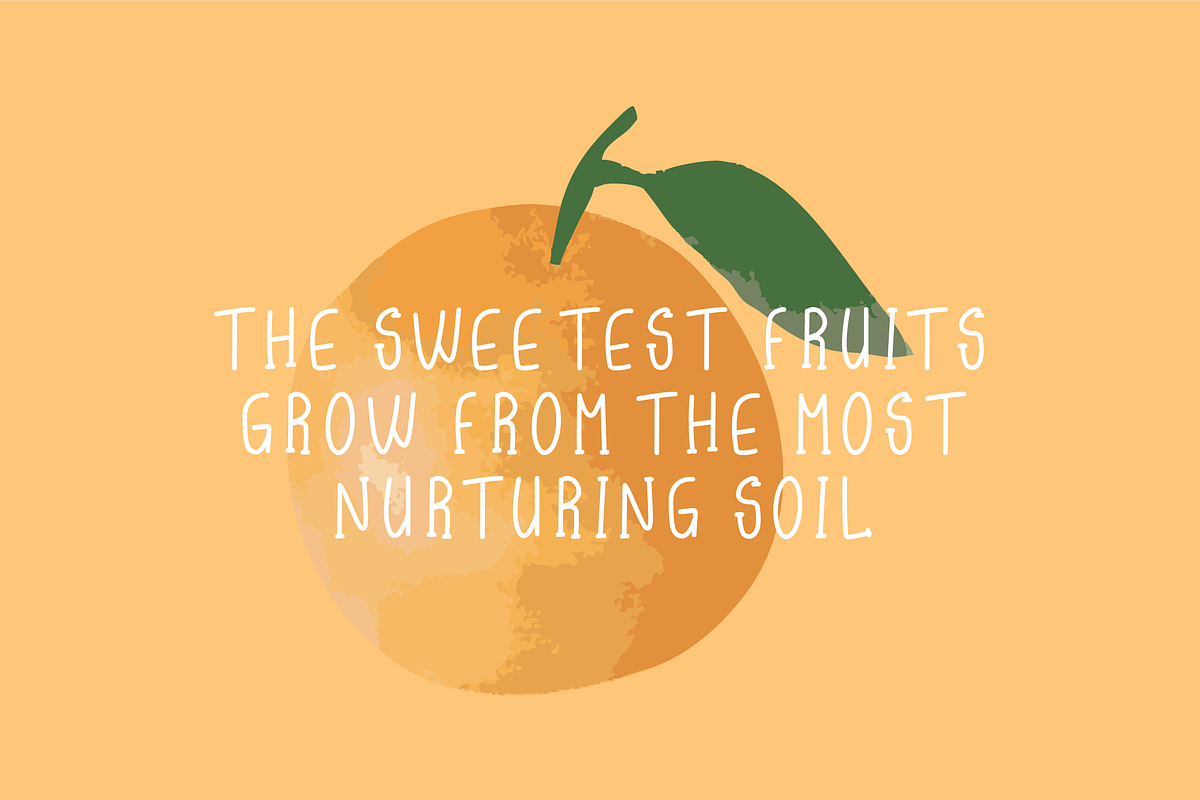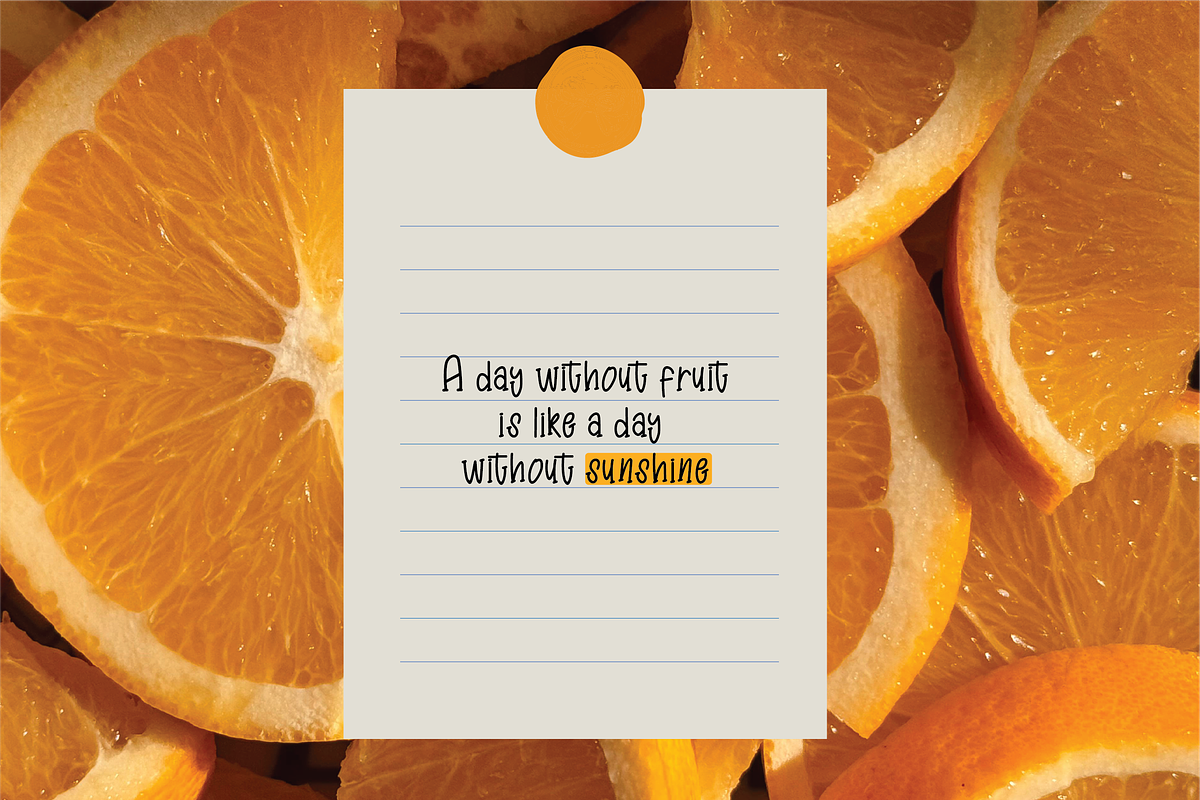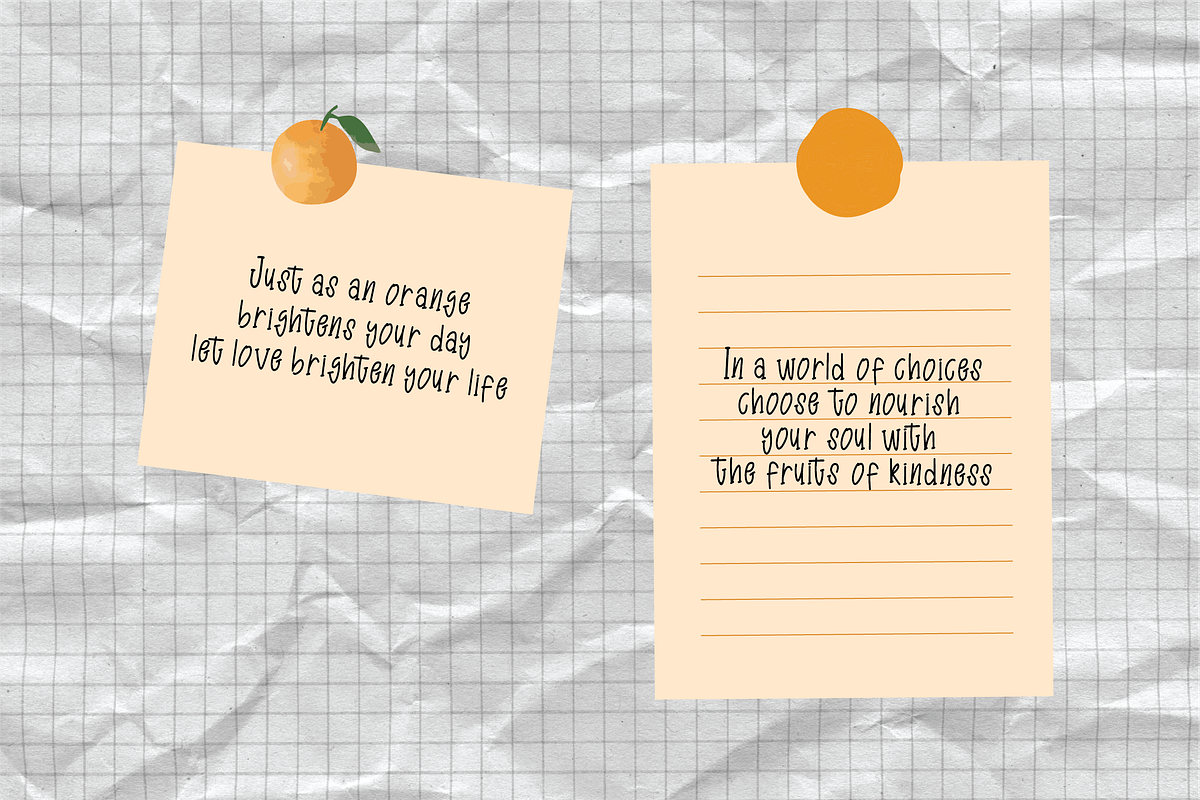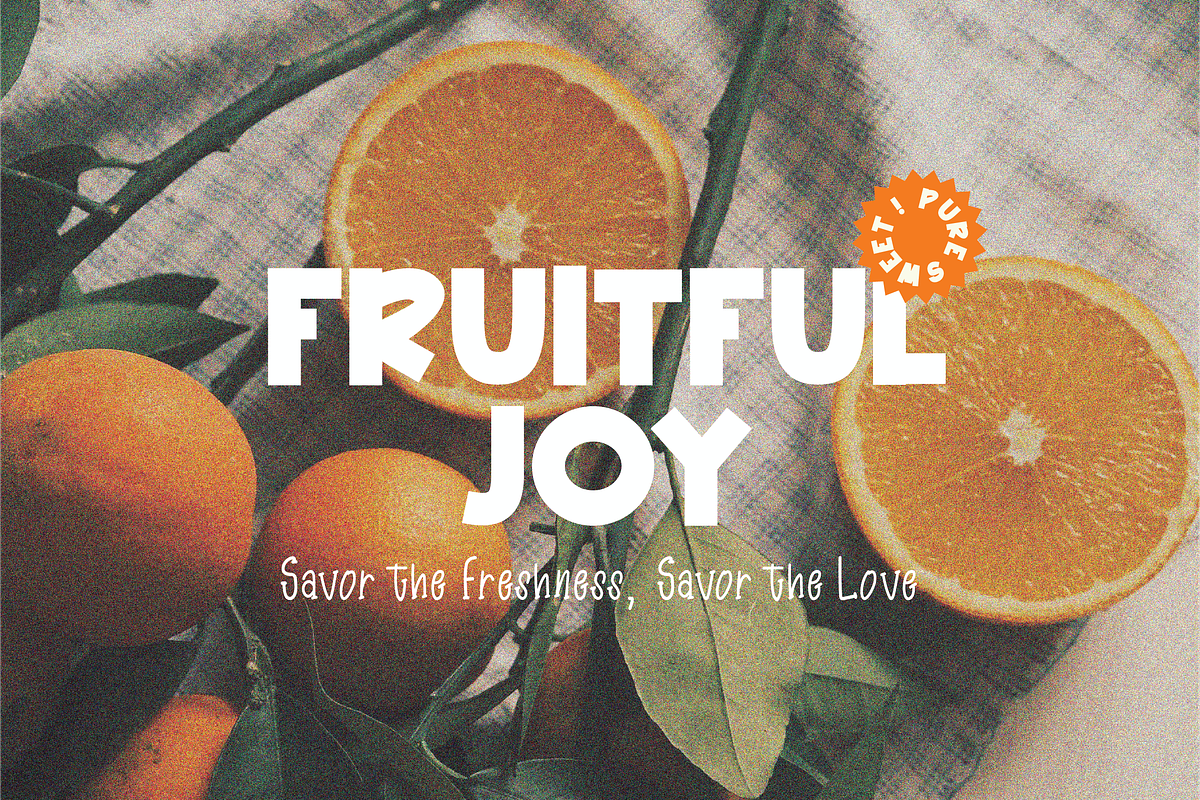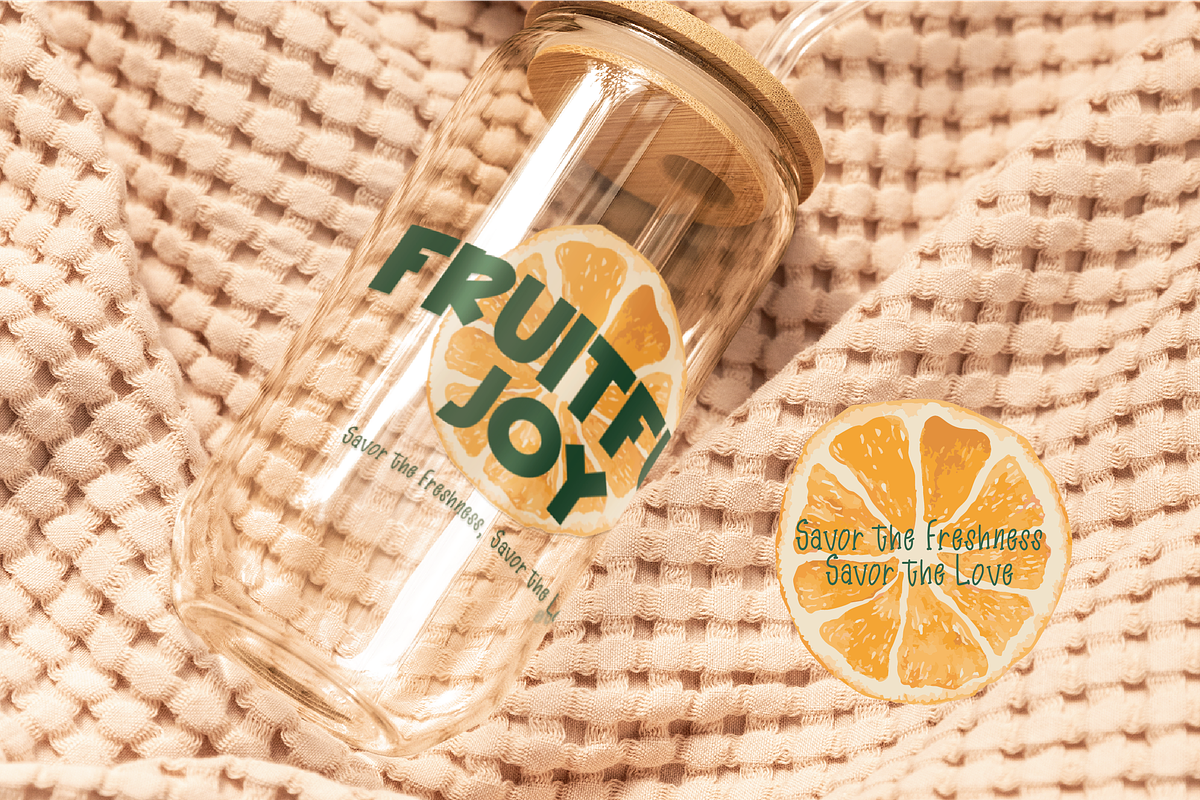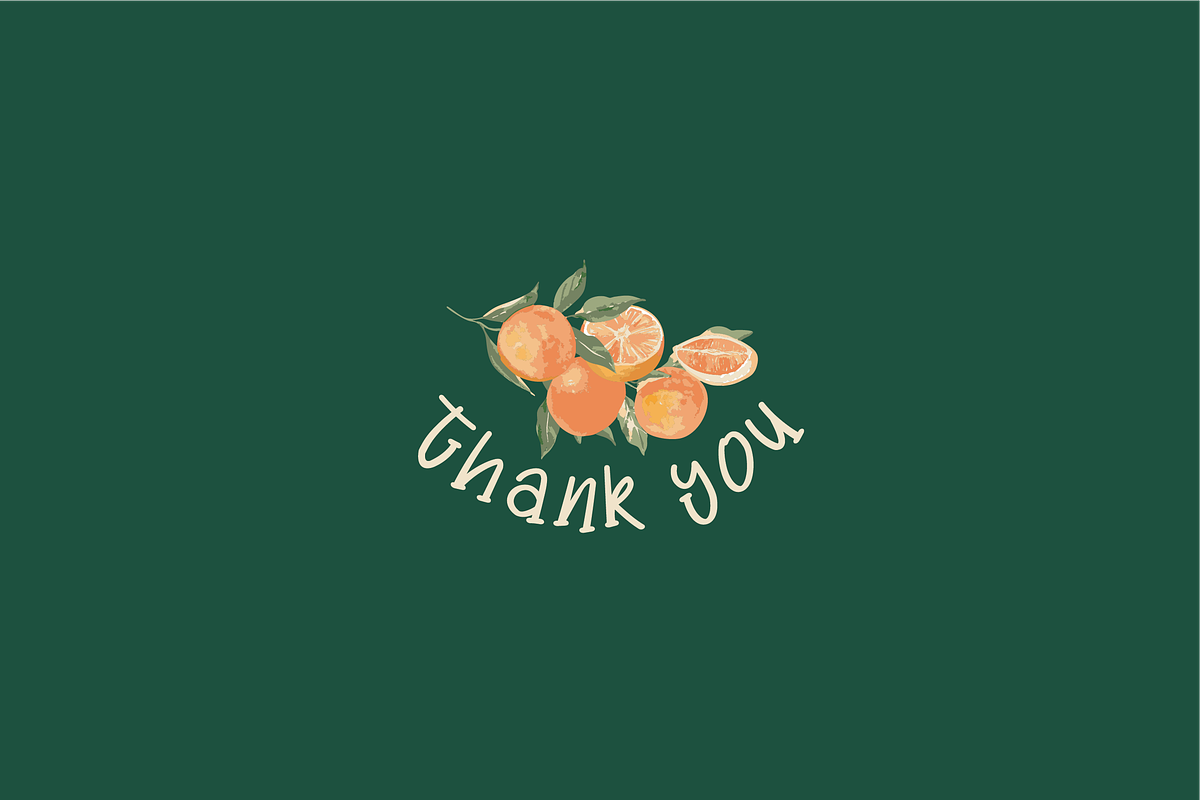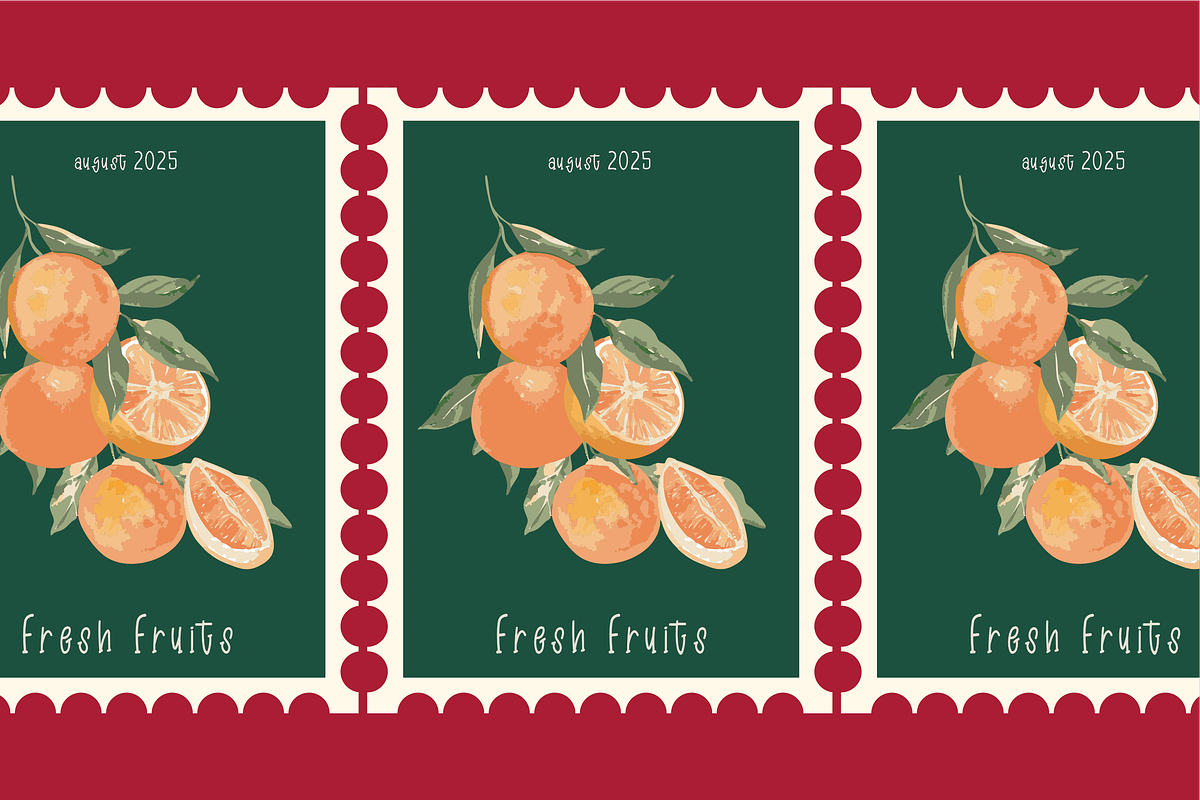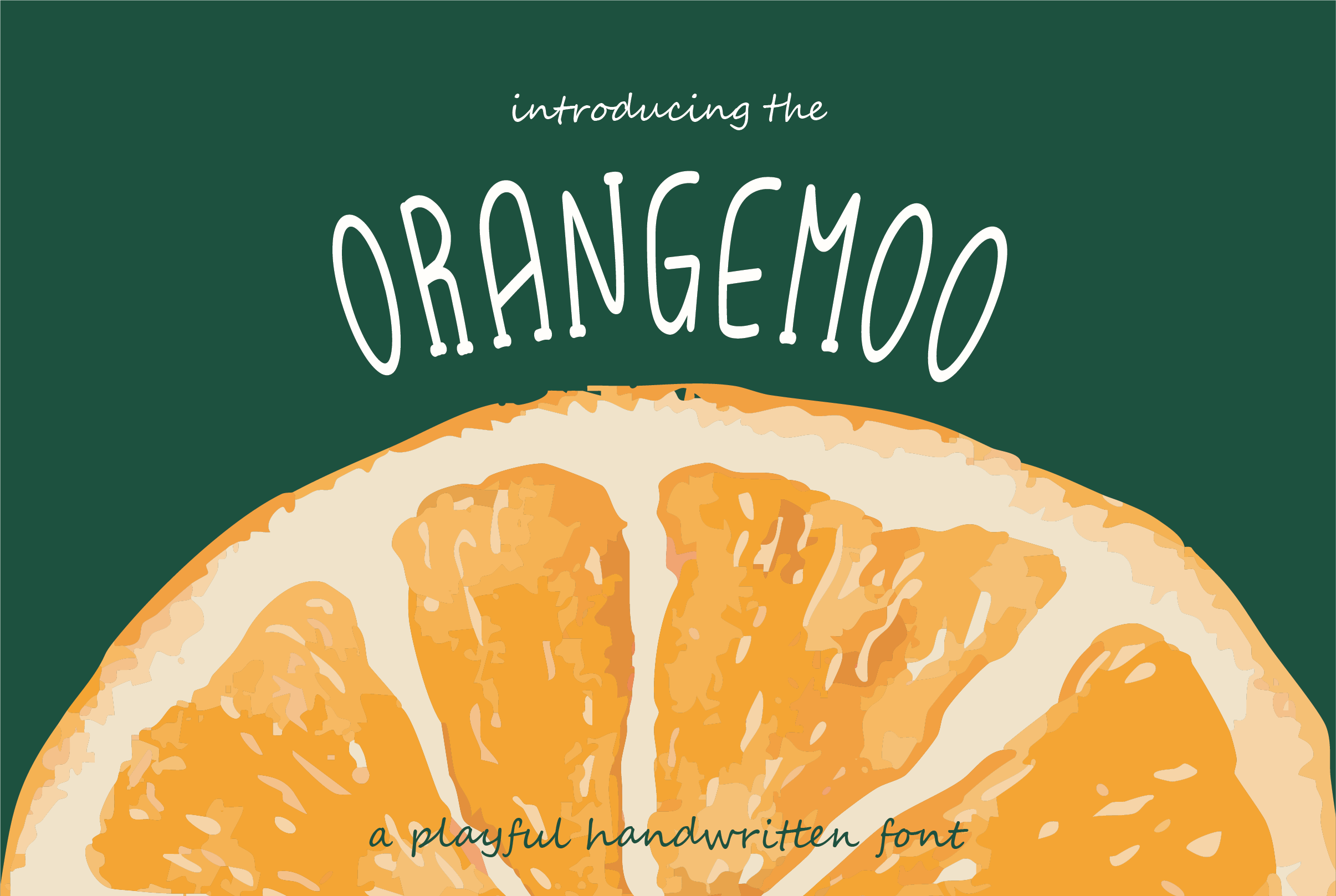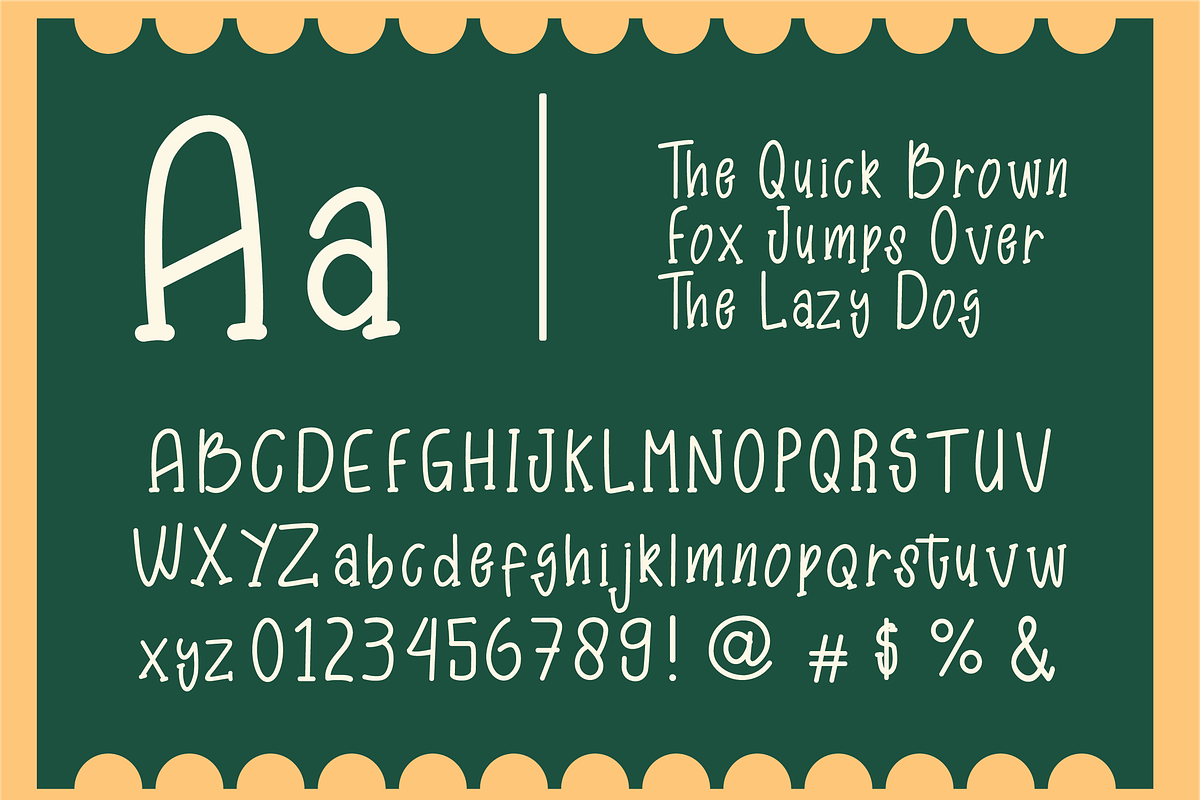
Orangemoo-Playful Handwritten Font
Orangemoo The font is playful and whimsical, with a hand-drawn, slightly uneven style. The letters are thin, with some exaggerated curves, making the font feel light-hearted and fun.